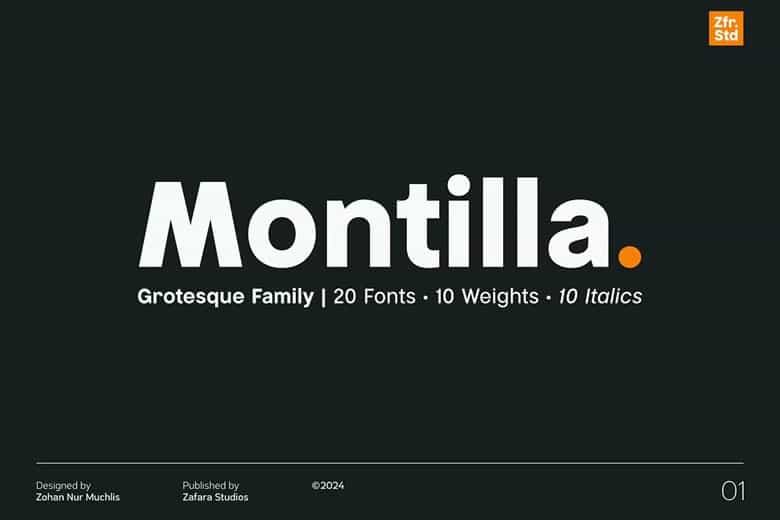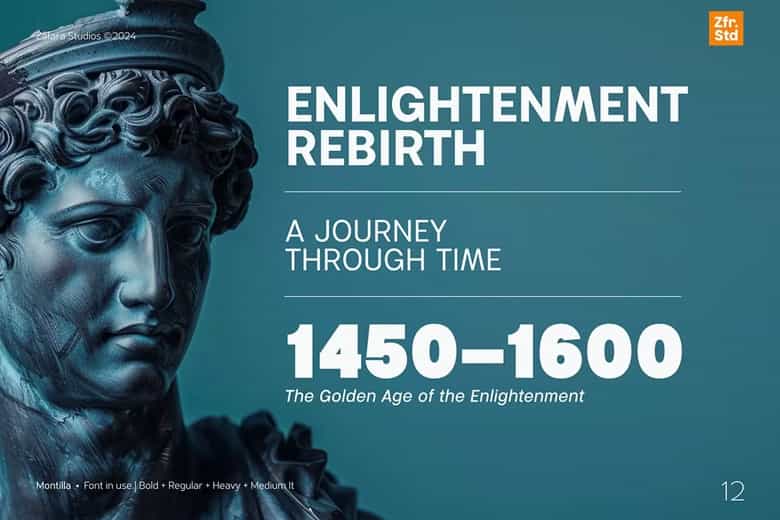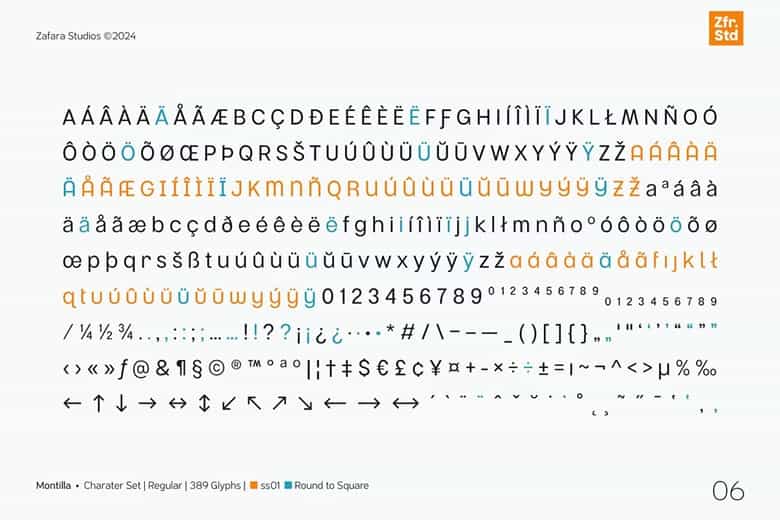
Montilla is a sans serif font that is very much versatile as it is designed in clean and geometric style with minimalistic decoration that makes it very legible and can be used for different purposes. It has a simple and minimalist look which means that it suits the modern and professional setting where space and functionality are of essence.